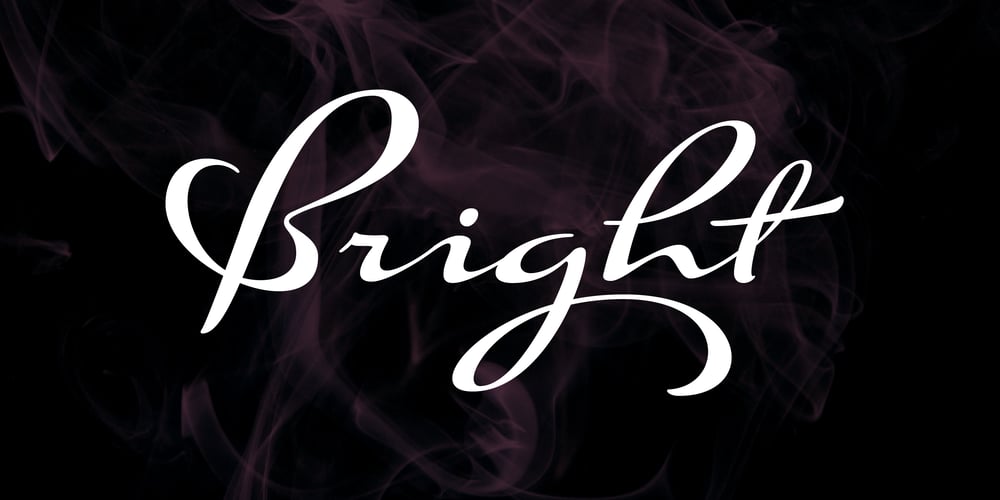
Suave Script Pro
Suave Script Pro font
Suave Script Pro Font Family was designed by Alejandro Paul and published by Sudtipos. Suave Script Pro contains 2 styles and family package options. Sun-tanned, smooth, and fluid. Suave Script is based on disconnected calligraphy originating from a how-to lettering book from the 1950s. The uppercase letters dance, and then dance some more – Samba, Tango, Mambo or Candombe – take your pick. The lowercase flows like honey waiting to be licked off the comb. A rare gem – depicting the sweet hustle and bustle of life of a history-rich urbanism. Suave Script is at once fashionable, human, and creative. For this new Pro version a number of endings, ligatures and an extensive range of languages were covered (Western and Eastern European, Baltic, Turkish, Maltese and Celtic)